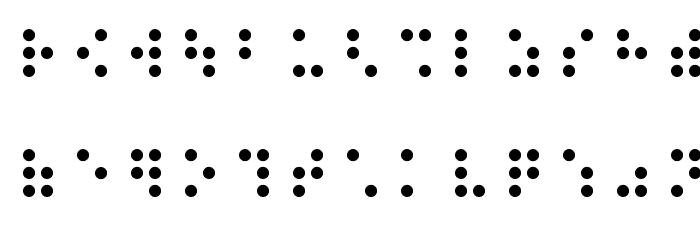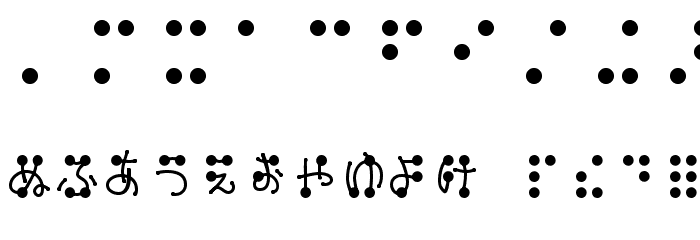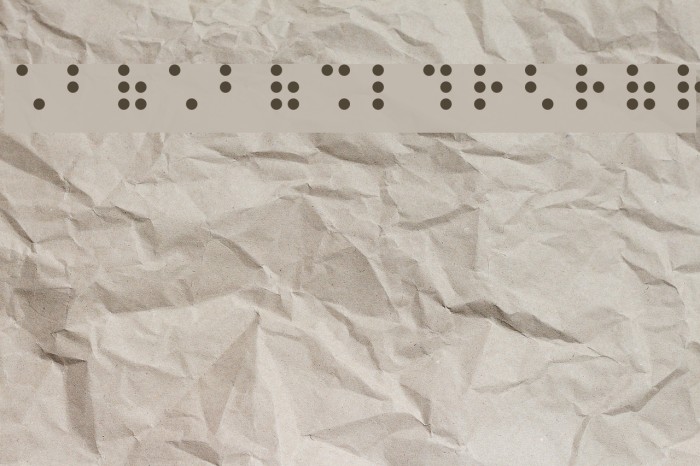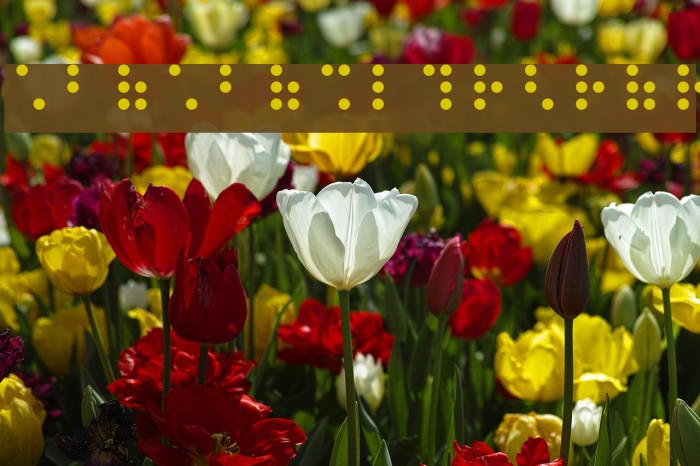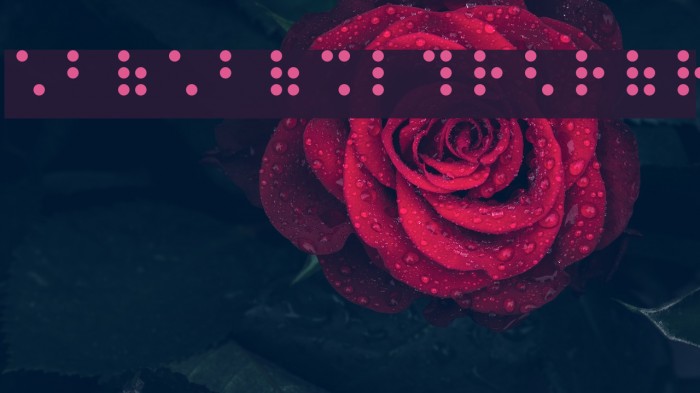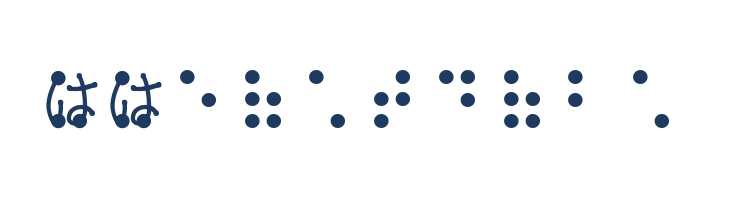
tentenhiragana Font
This font is a playful and decorative representation of the Japanese Hiragana script, characterized by its use of dots and rounded strokes that create a whimsical and unique appearance. The characters are composed of bold, circular elements that give the font a bubbly and dynamic feel. The design maintains a consistent stroke width throughout, contributing to a balanced and cohesive look. The font's style is distinctly modern yet retains a touch of traditional Japanese aesthetics, making it suitable for creative and cultural projects. The overall impression is one of lightheartedness and creativity, ideal for designs that aim to capture attention and convey a sense of fun.
A playful, dot-based decorative font inspired by Japanese Hiragana.
- Proposed Projects: Ideal for cultural projects, children's books, playful branding, and creative posters.
- Use Case: Logos, Posters, Creative projects